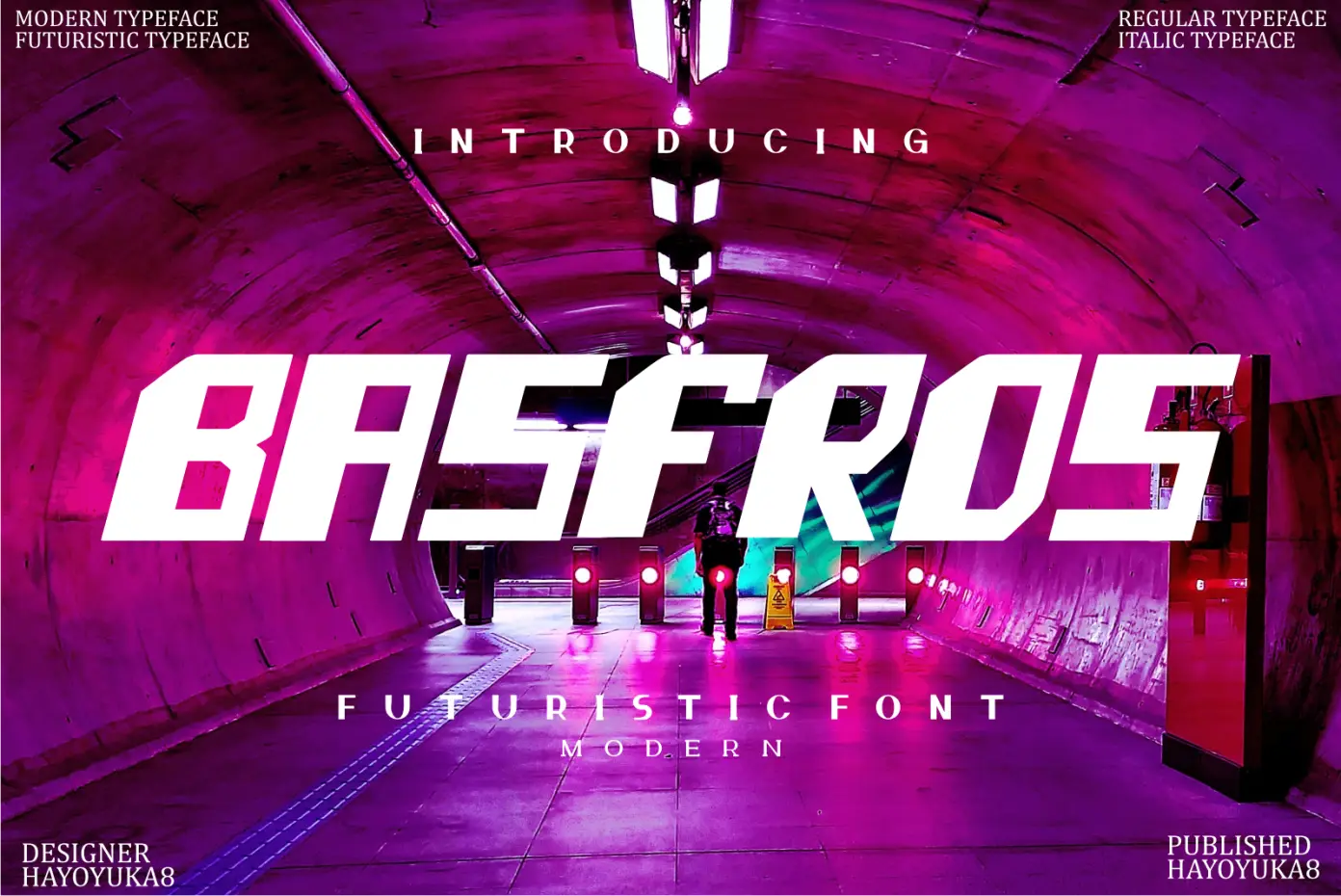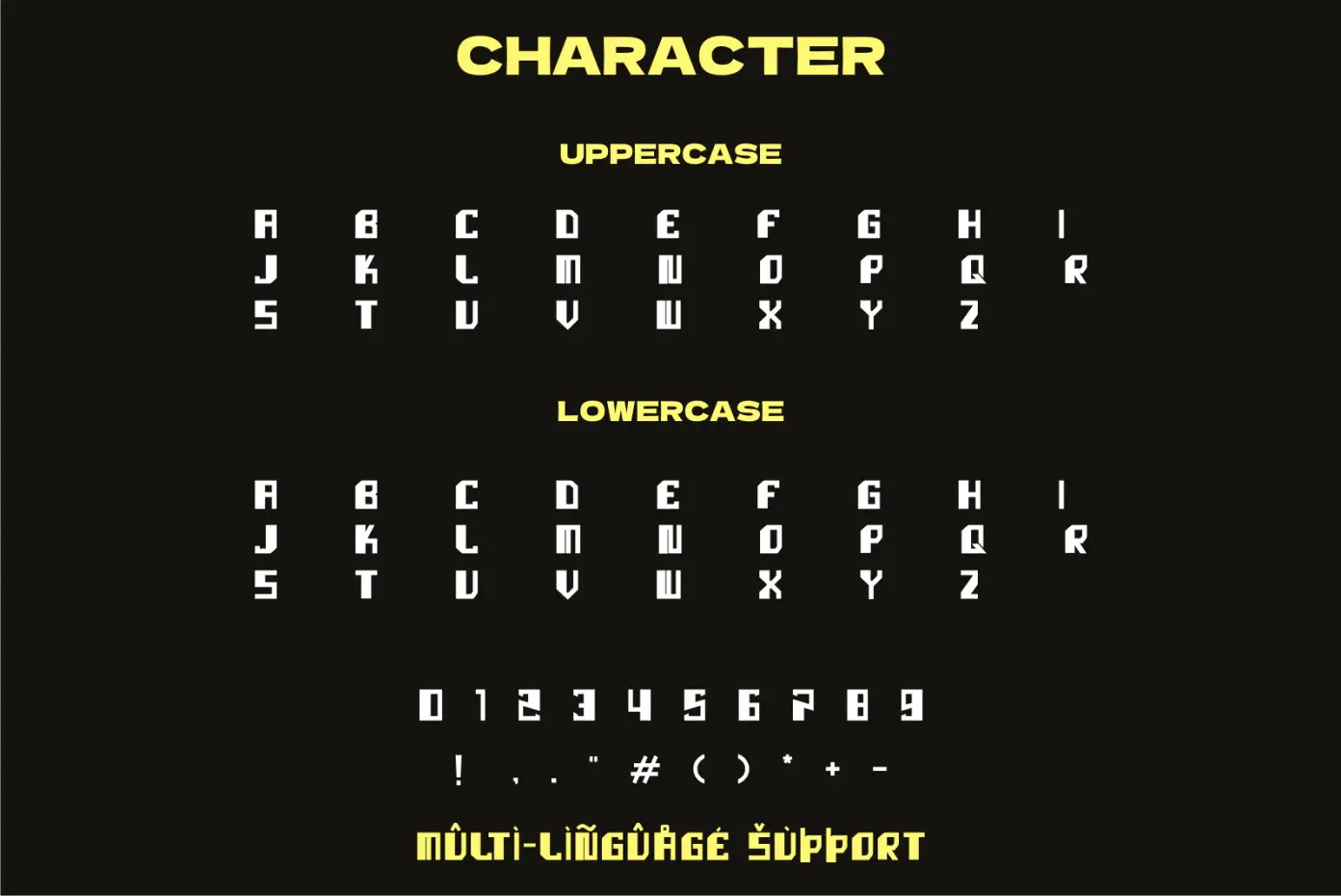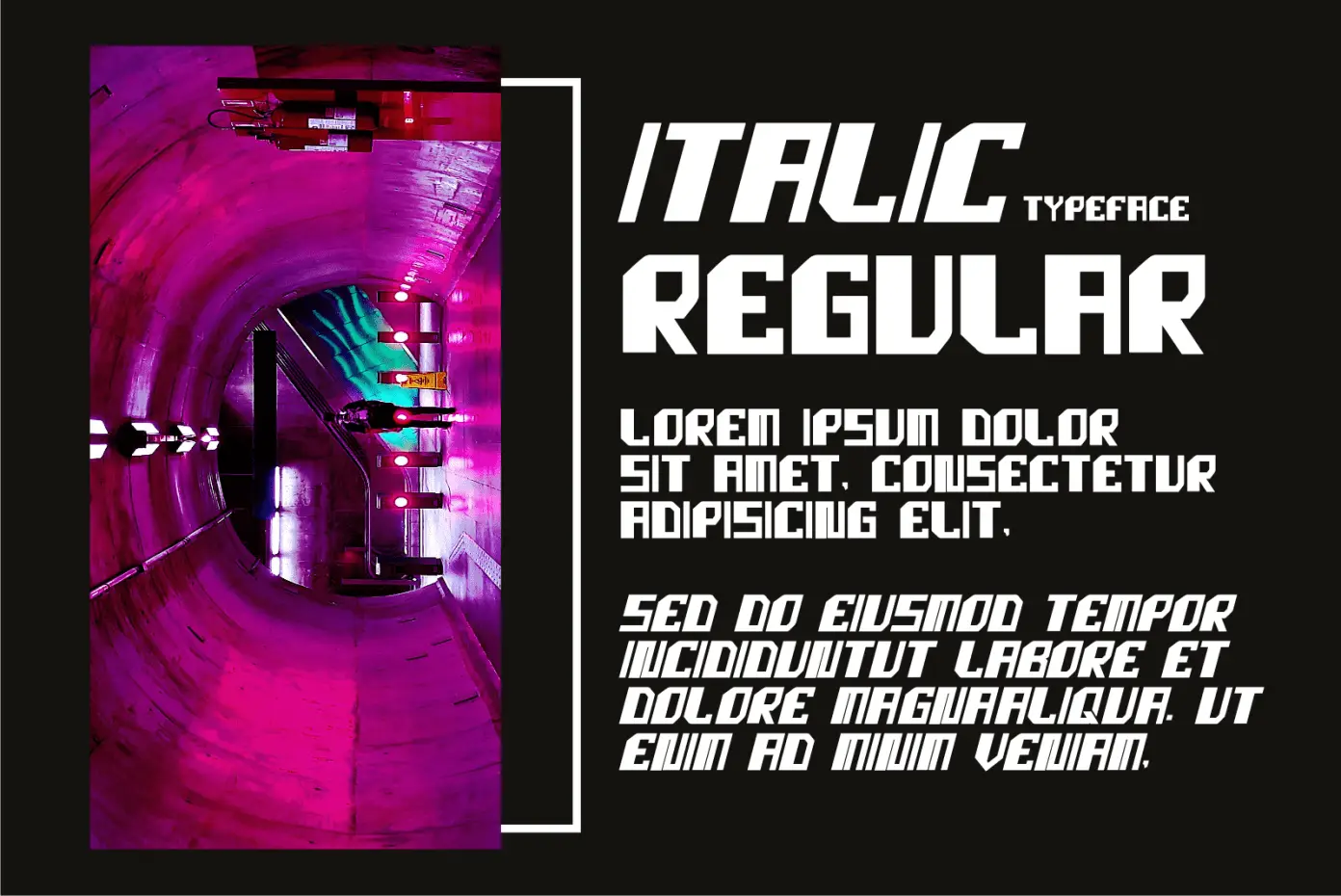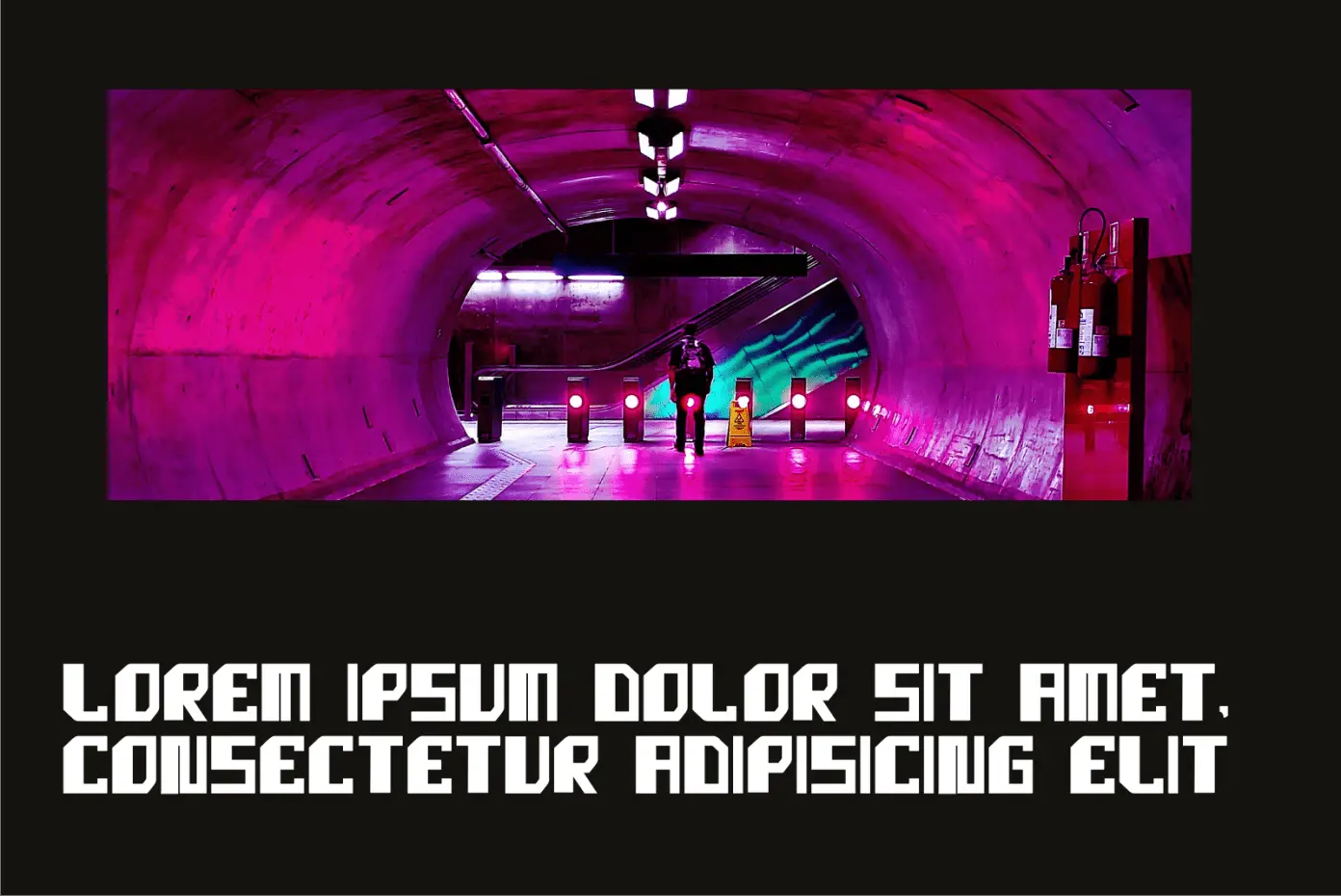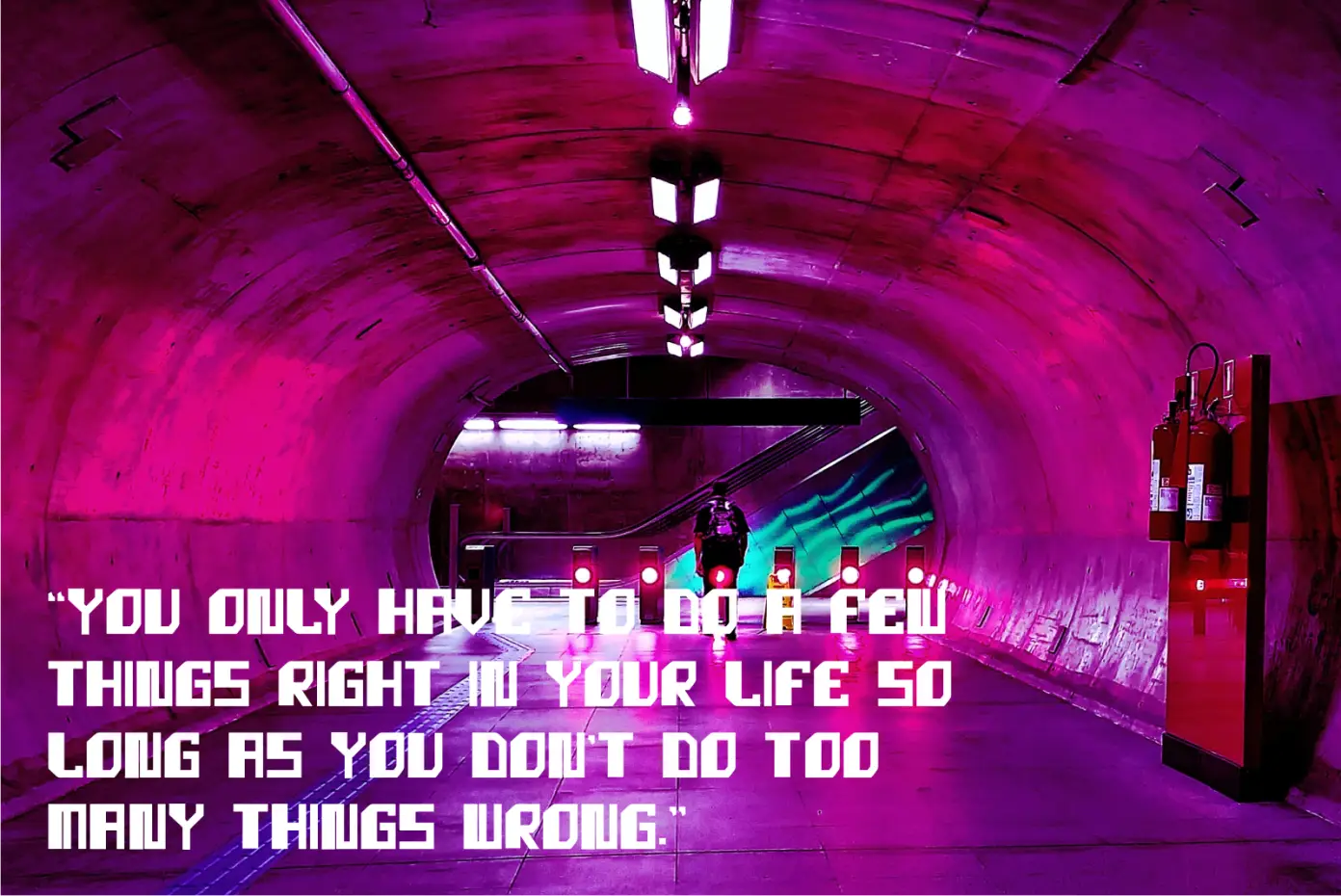
Basfros Display Font
The Basfros Display Font is a striking typeface designed to make a statement in any project. With its bold and unique character shapes, this font is perfect for headlines, logos, and branding materials that require attention-grabbing typography.
• Distinctive display style
• Ideal for branding and logo design
• Great for print materials like posters and flyers
• Perfect for web design and user interfaces